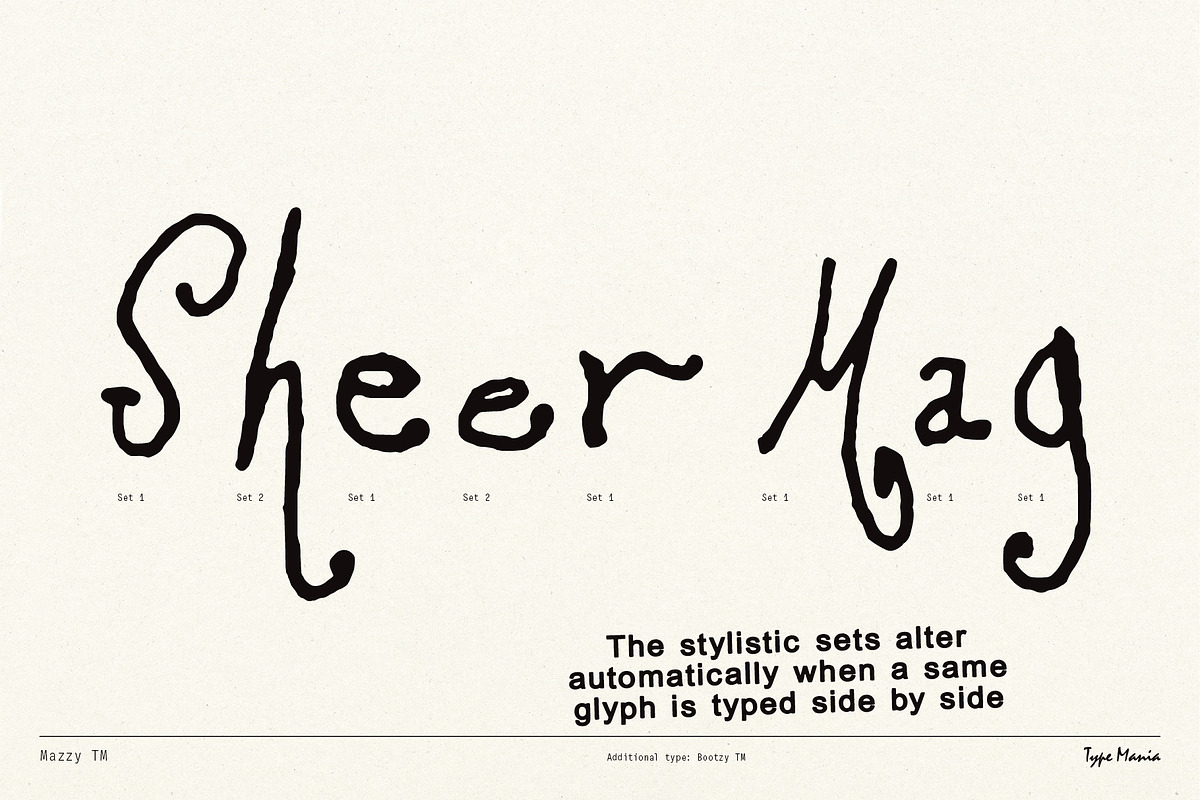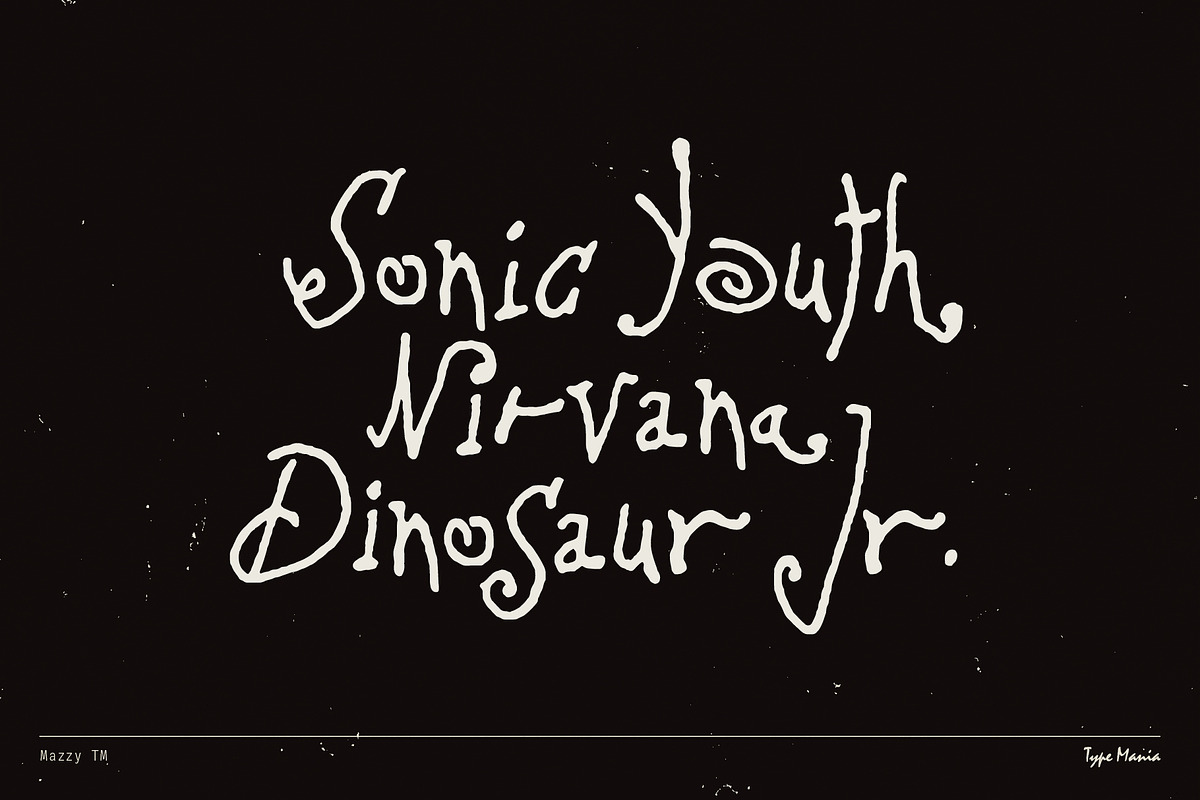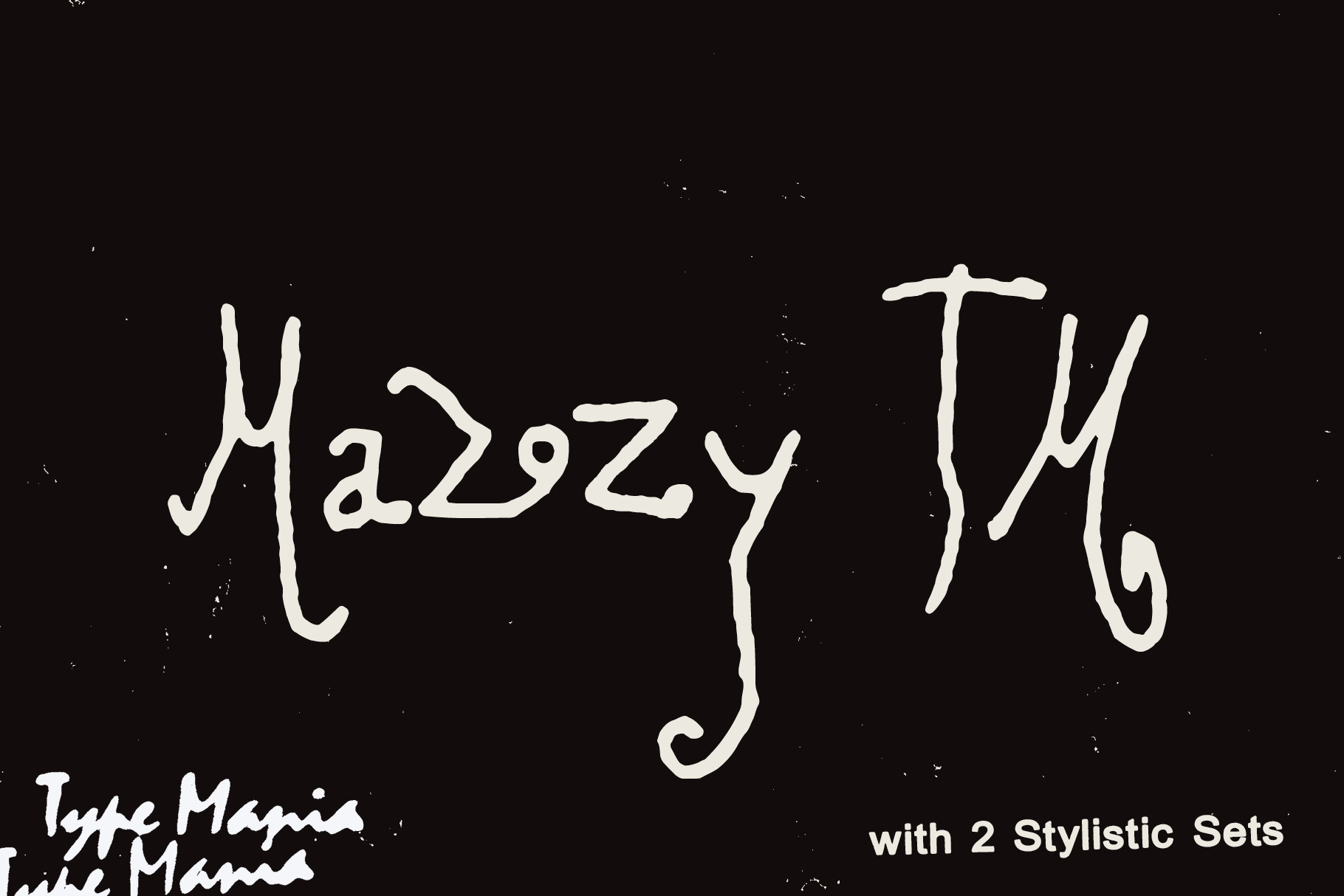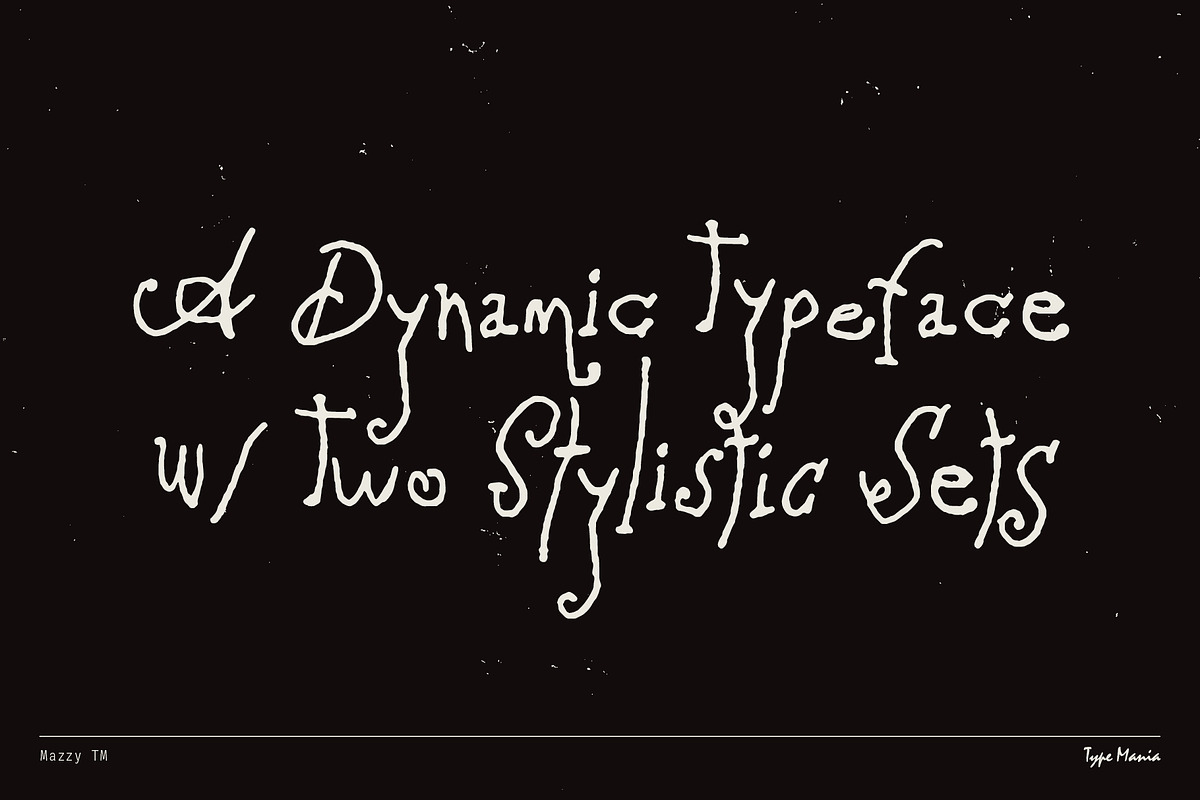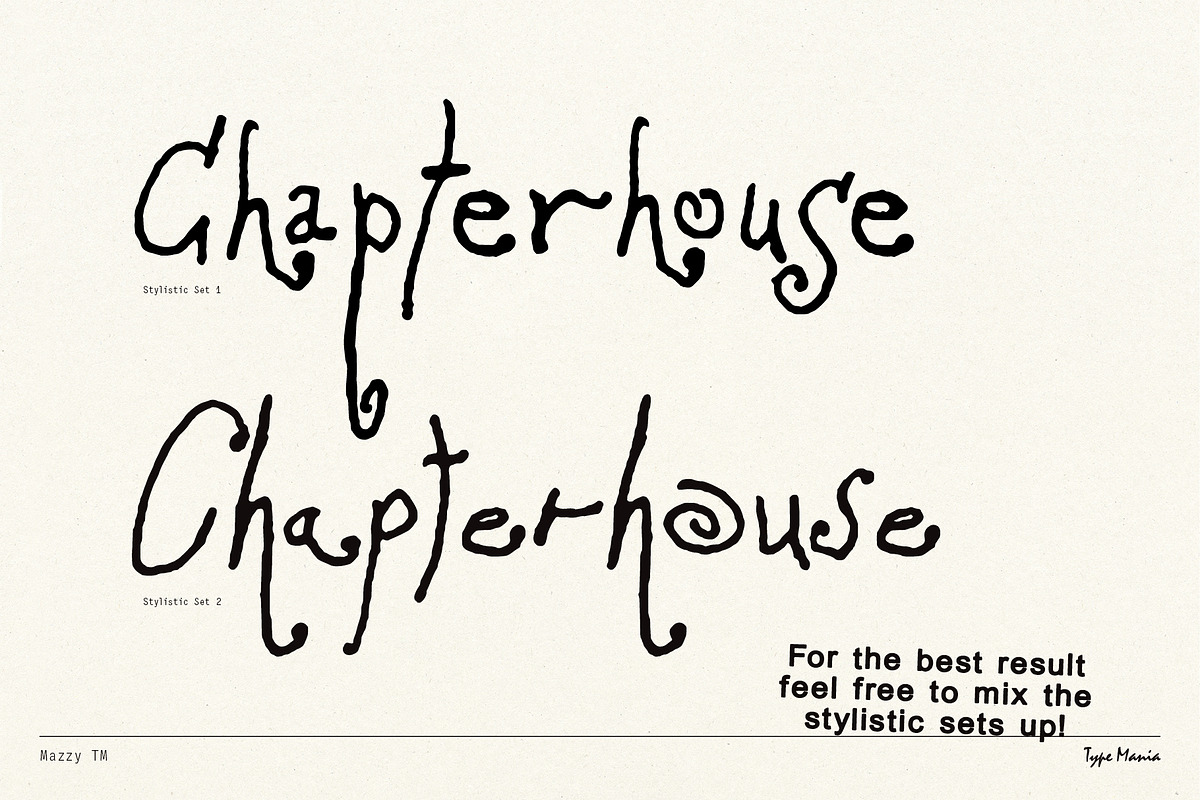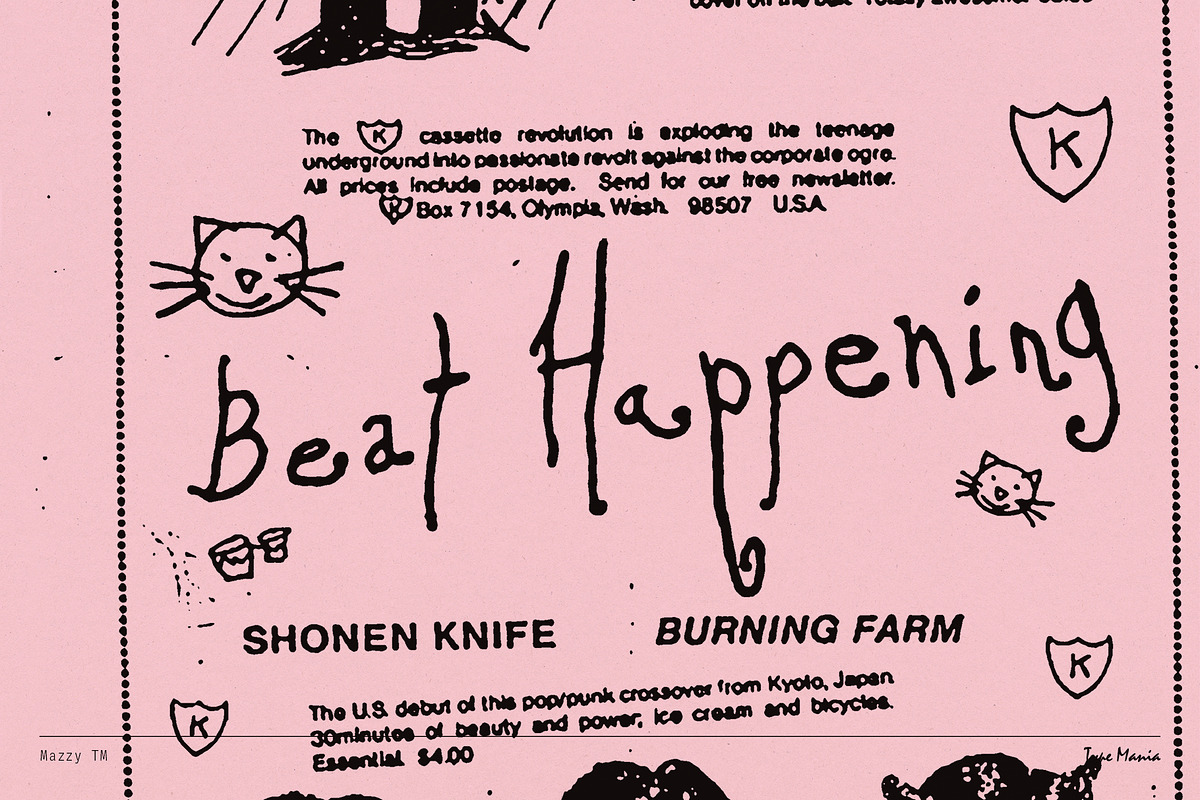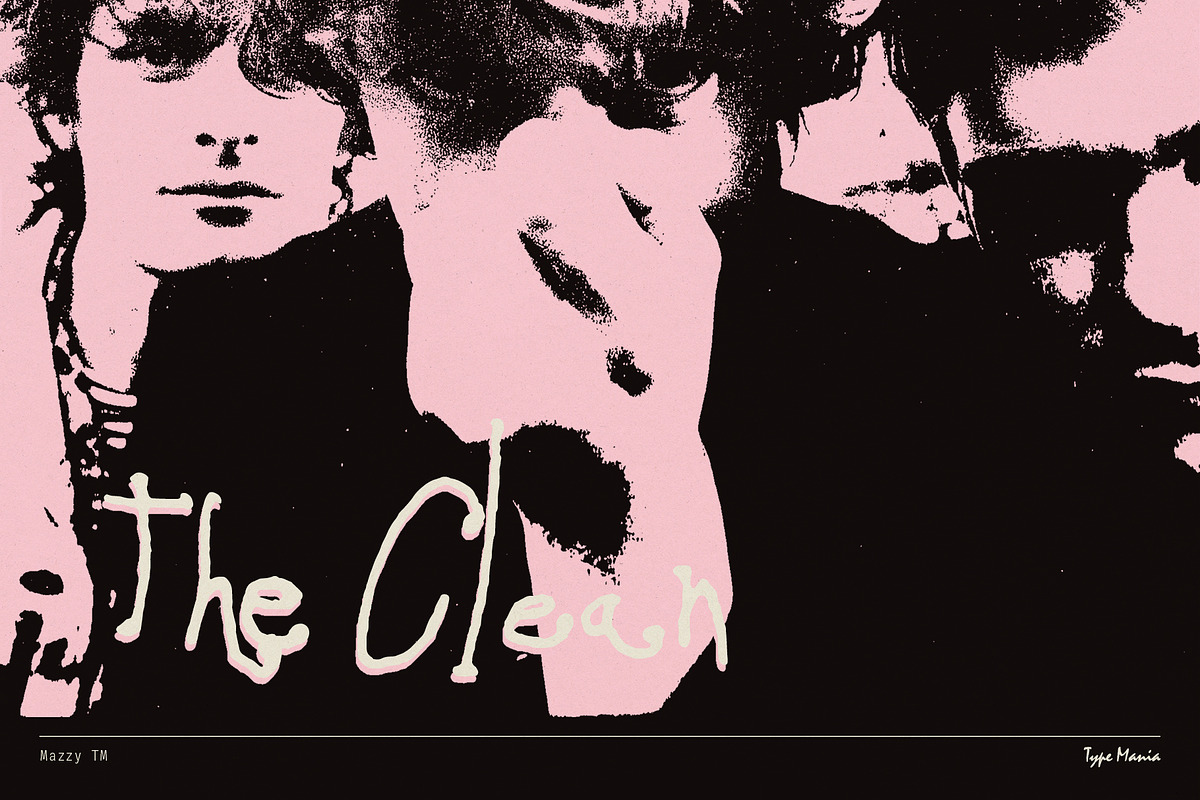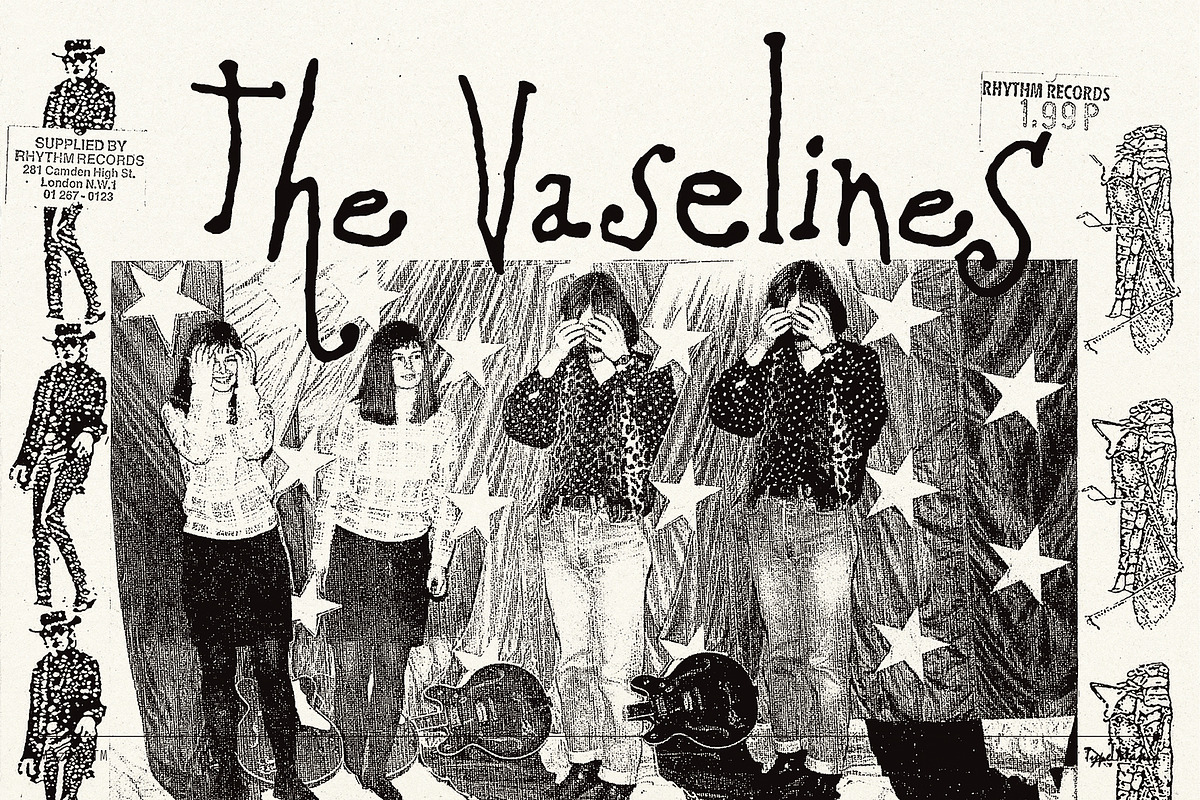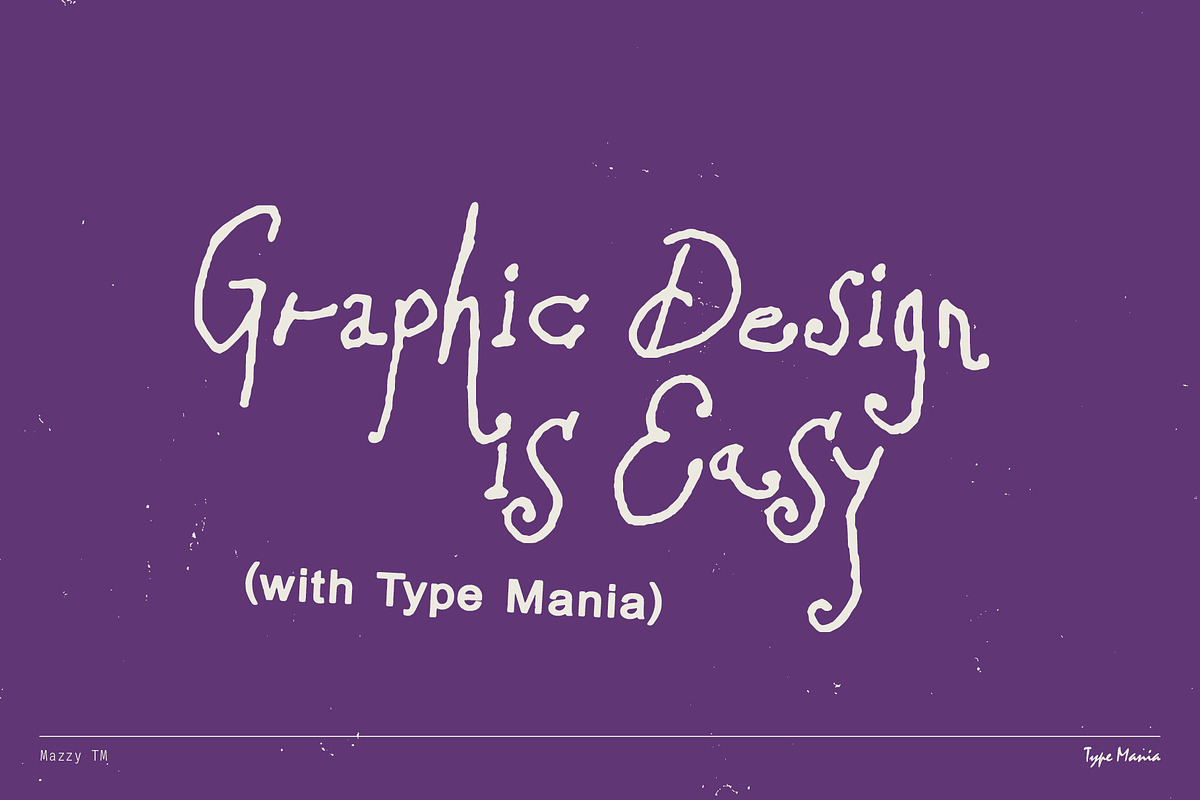
Mazzy TM – Alternative Script Font
Meet Mazzy TM – the script channeling the underground spirit of the 80s and 90s alternative scene. Whether you're designing merchandise or event flyers, Mazzy TM is guaranteed to deliver.
OpenType features
- 2 stylistic sets
- The font is programmed to automatically shift between the stylistic sets whenever the same glyphs are typed side by side
Languages
- Basic Latin
- Western European
- Euro
- Central European
- Pan African Latin
- 389 glyphs